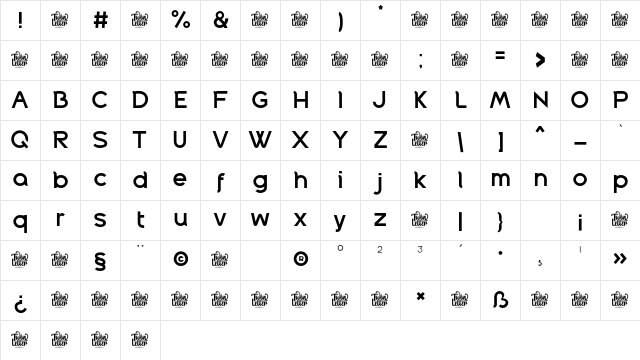
Puntodewa Regular Free Font
Puntodewa Regular
Puntodewa Family
Puntodewa Regular
Complete Puntodewa Regular glyph index. Displaying only characters natively supported by Puntodewa Regular font.
Design Context for Puntodewa
Puntodewa is a composed and adaptable typeface that performs quietly and consistently across a wide range of design contexts.